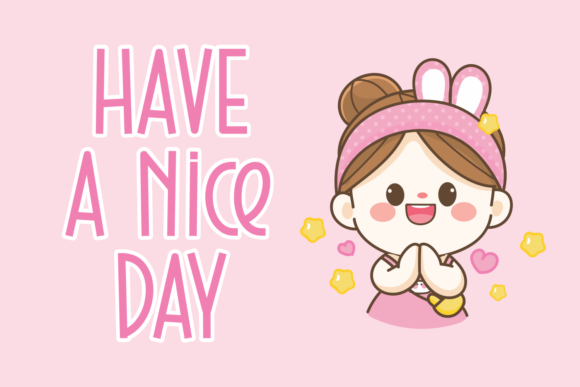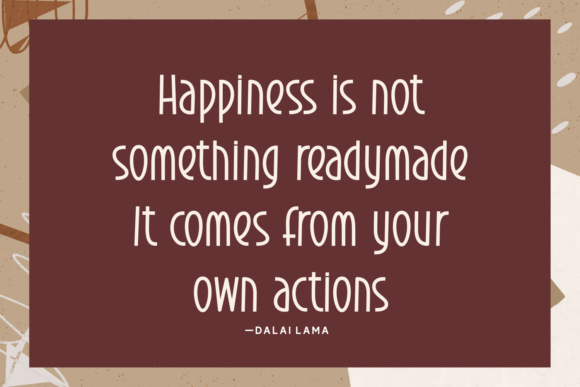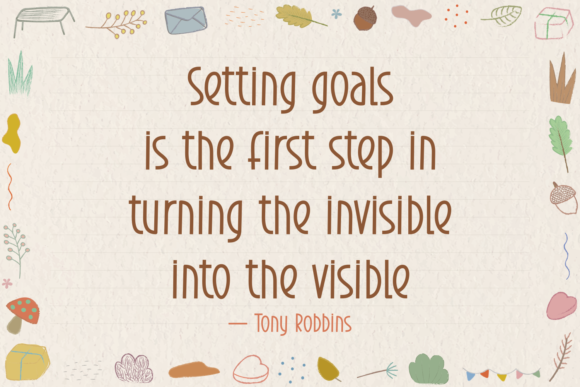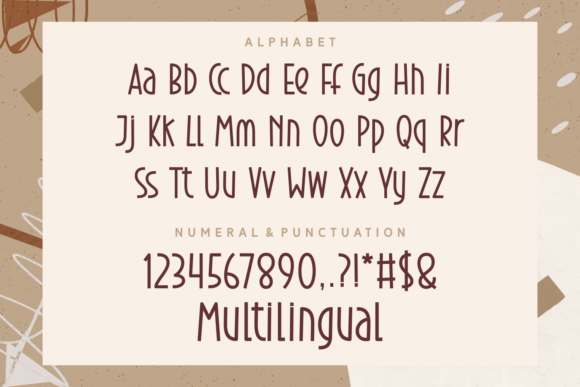
Brown Latte Font
About Brown Latte Font
Sometimes less is more. Brown Latte is a minimalist handwritten font featuring modern characters. This set is an essential staple for your library to enhance any craft, print, digital design, and more!